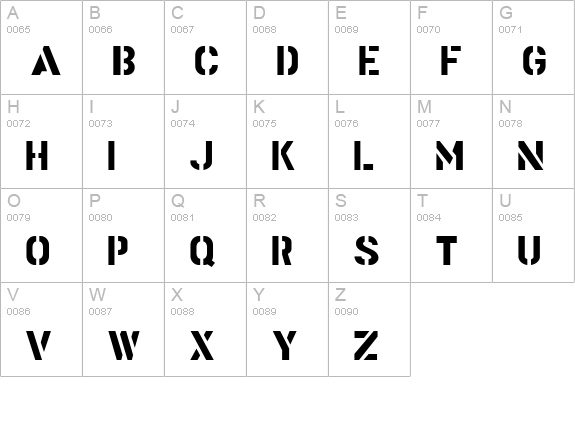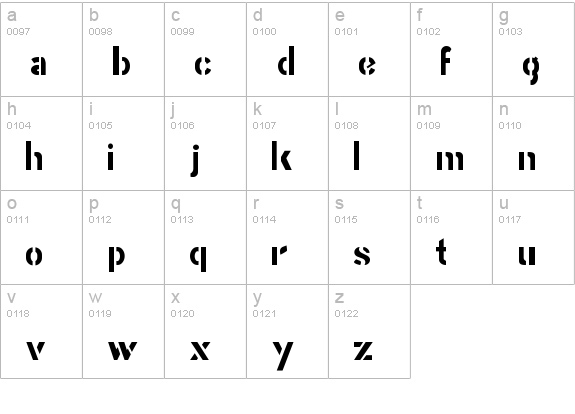
Stencil Gothic BE Font Details
Stencil Gothic BE is a distinctive and eye-catching font that is perfect for making a bold statement. With its bold and sharp edges, this font exudes a sense of strength and power. It is inspired by the classic stencil style, which adds a touch of industrial and urban flair to any design. This font is not only visually striking but also highly versatile. Its clean lines and bold characters make it ideal for various design projects, including posters, logos, headlines, and more. Whether you want to create a modern and edgy look or evoke a vintage atmosphere, Stencil Gothic BE has got you covered. One of the best things about Stencil Gothic BE is that it is free to download at FontsMarket.com. This means that you can easily access this amazing font and incorporate it into your designs without any limitations. Whether you are a professional designer or a casual enthusiast, you can freely unleash your creativity with Stencil Gothic BE. So, why wait? Download Stencil Gothic BE today at FontsMarket.com and elevate your designs to a whole new level. With its bold and unique aesthetic, this font will surely make a lasting impression and captivate your audience. Don't miss out on the opportunity to make your designs stand out with the stunning Stencil Gothic BE font.